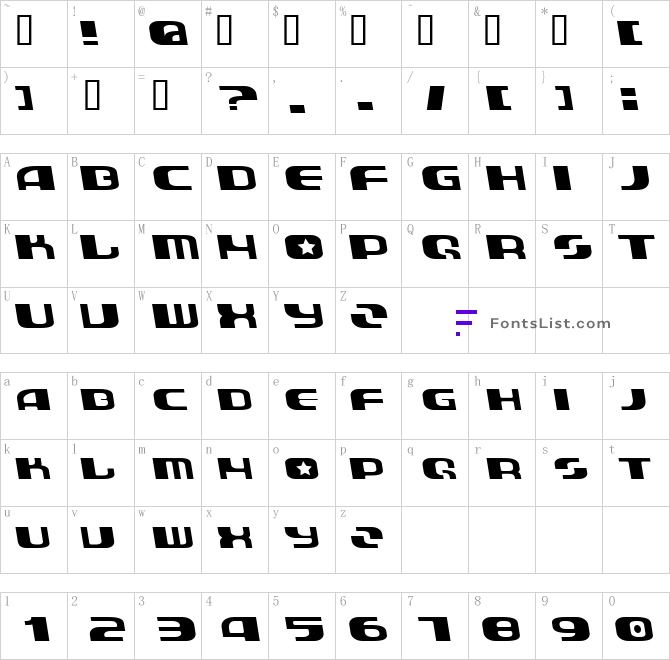
- Font Name:AuroraDevil
AuroraDevil-Bold.ttf is a very beautiful artistic font, AuroraDevil-Bold.ttf is widely used in the design and printing of various books and pictures,AuroraDevil-Bold.ttf has a strong visual impact,AuroraDevil-Bold.ttf is a commonly used font in newspapers, magazines and books, and is used in posters, e-commerce Poster design, store design, logo design, font design and other fields.AuroraDevil-Bold.